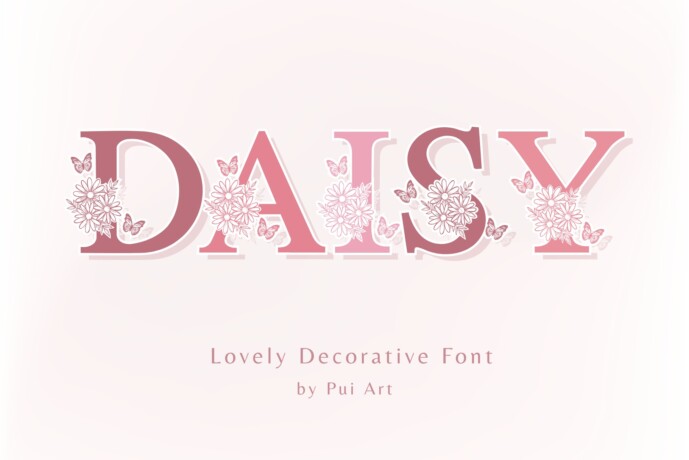
Daisy Butterfly Font
Designer: Pui Art
Daisy Butterfly is a beautifully ornate decorative font adorned with daisy and butterfly accents. This font is perfect for creating elegant monograms, wedding invitations, branding, or logo design where a touch of vintage charm is desired. Each letter feels like a blooming garden, bringing nature-inspired sophistication to your designs.